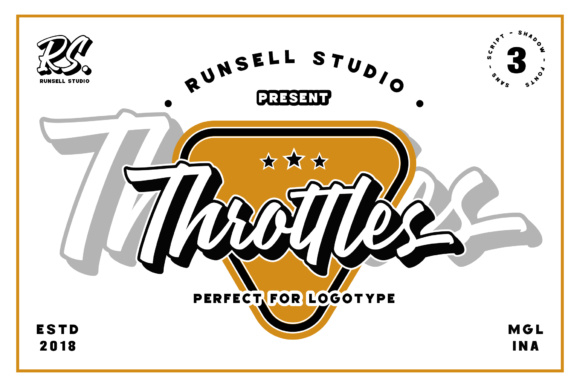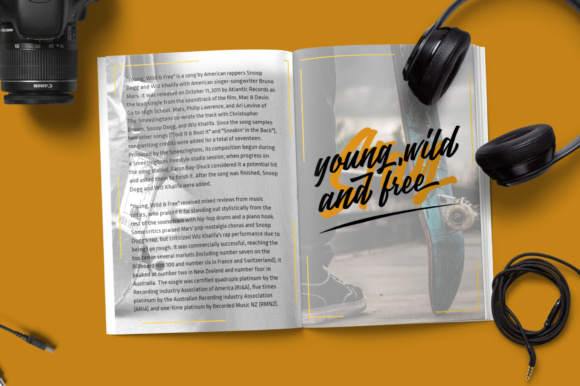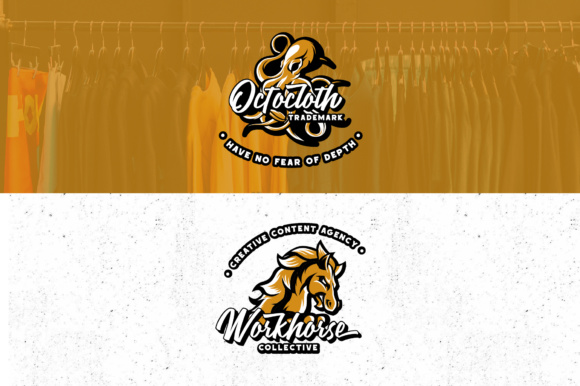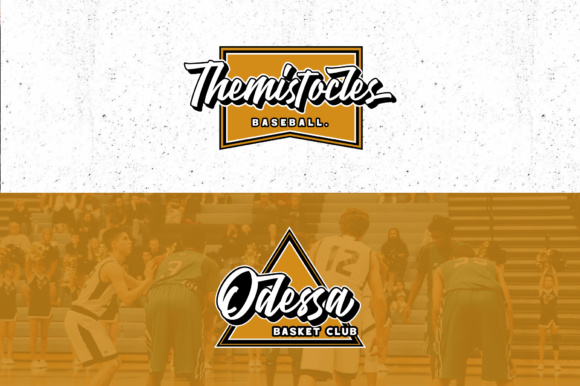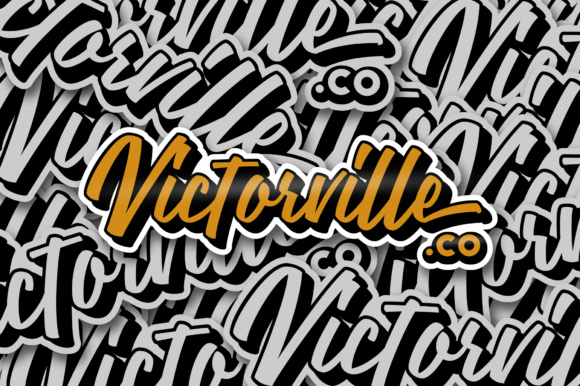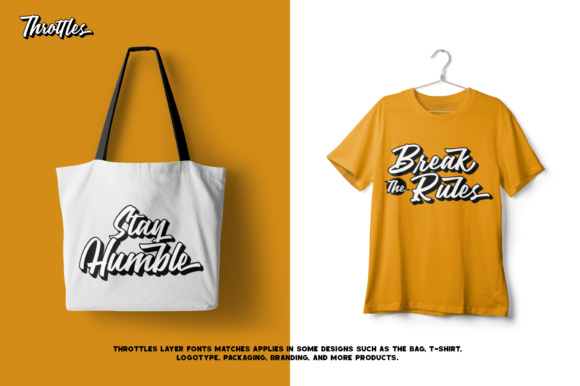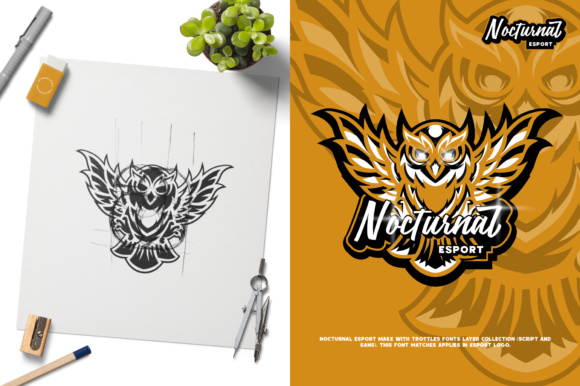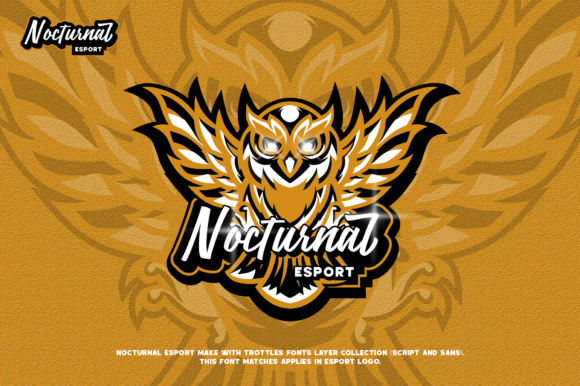
Throttles Font
About Throttles Font
Throttles is the perfect font for logos. It comes in three variations: regular, shadow and sans. The regular and shadow version come with a layered system and the sans is added for the perfect font combination. In addition to logo’s, Throttles can also be used for stickers, bags, magazines, websites and much more!